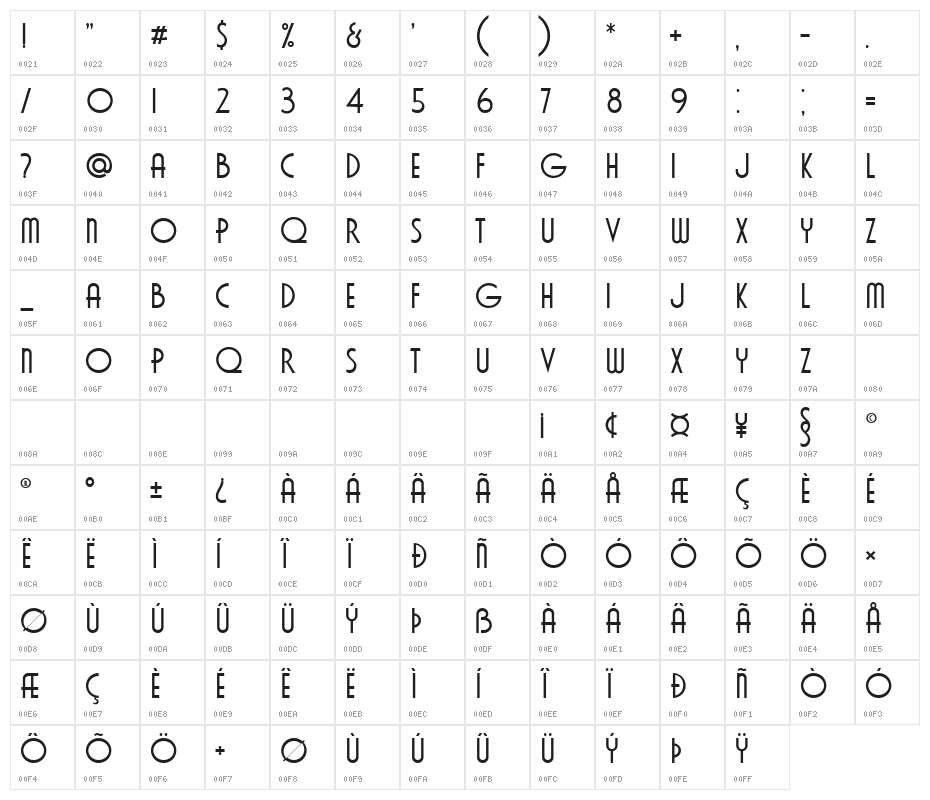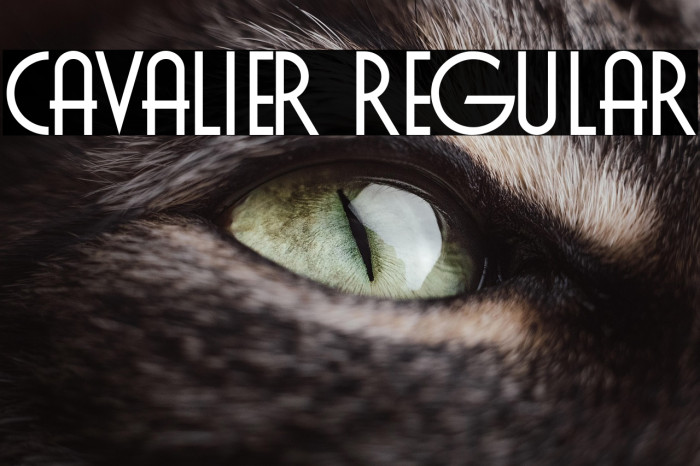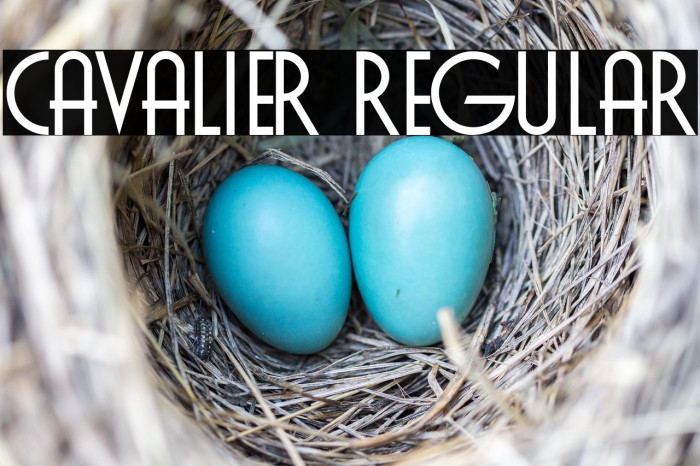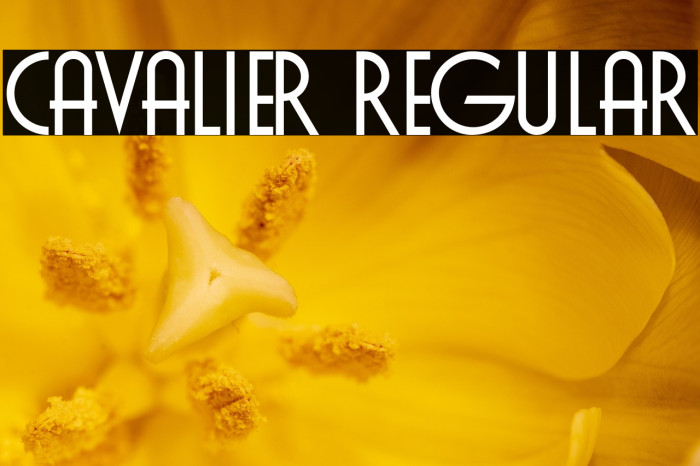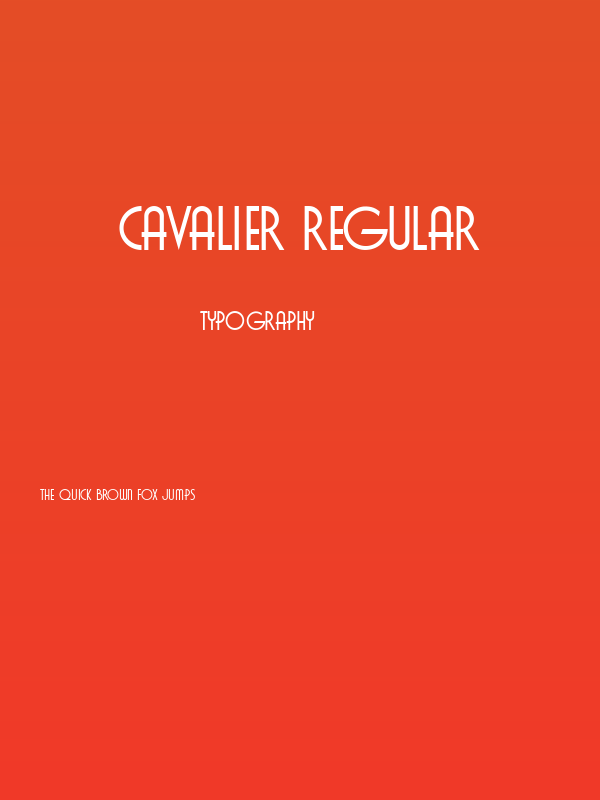
Cavalier Regular Font
Cavalier Regular Description
This font features a sleek and modern design with clean lines and a geometric structure. The characters are tall and narrow, giving it an elegant and sophisticated appearance. The uppercase letters are particularly striking, with a uniform height and consistent stroke width. The lowercase letters maintain the same geometric style, ensuring readability and visual harmony. The numerals are distinct and clear, complementing the overall design. Special characters are well-integrated, maintaining the font's cohesive look. This font is ideal for projects that require a contemporary and stylish touch.